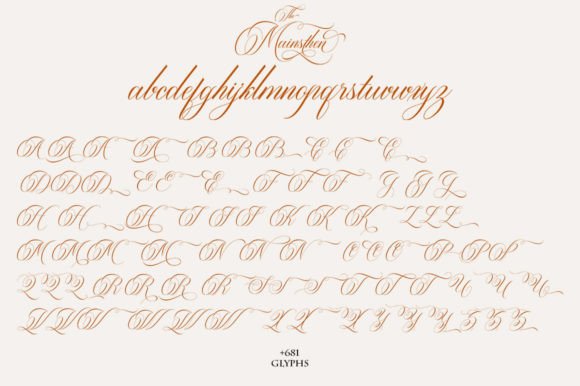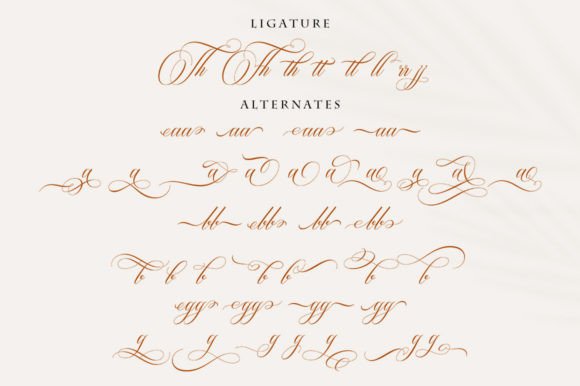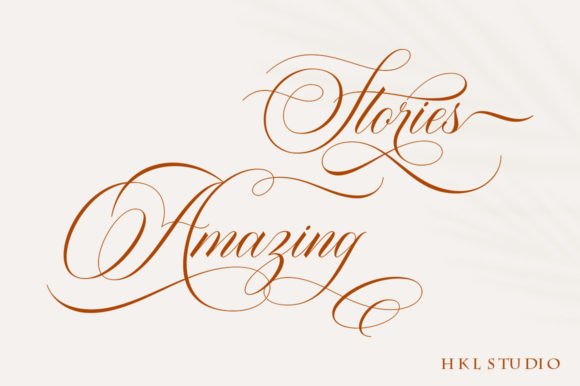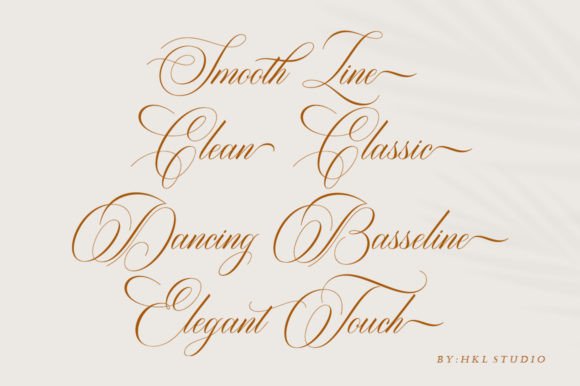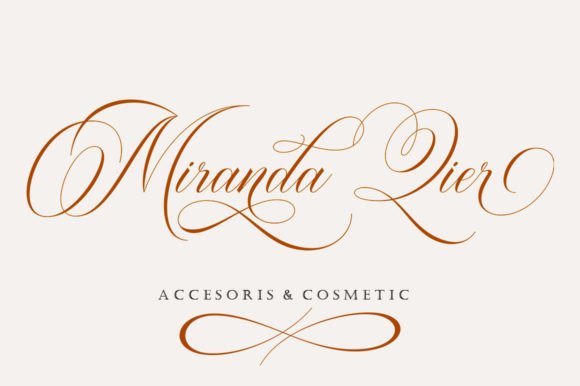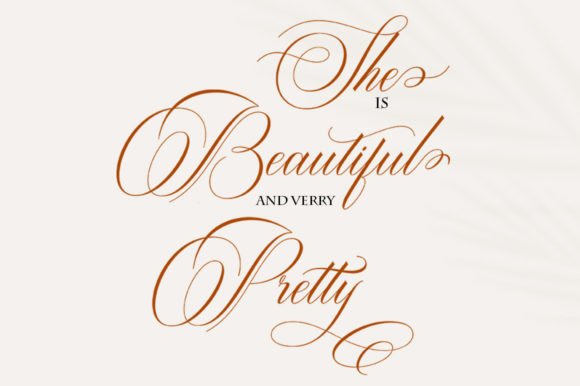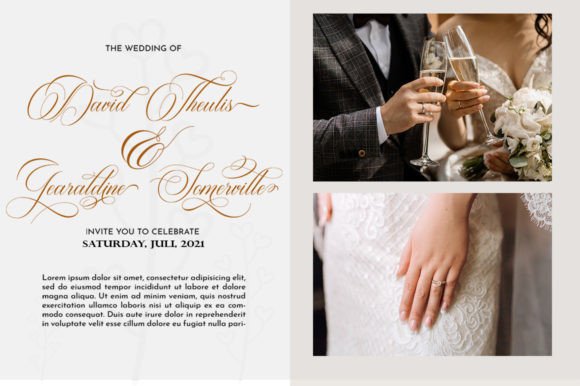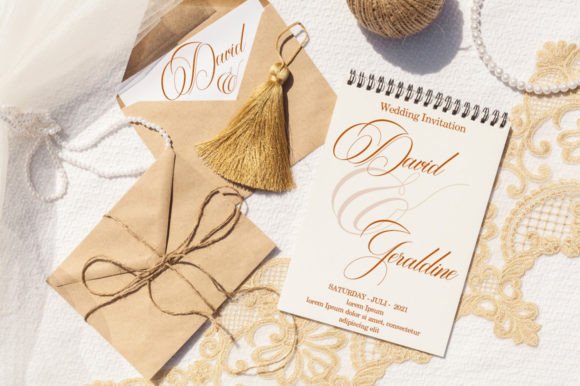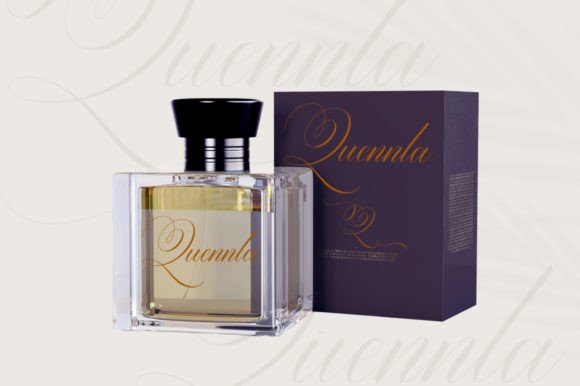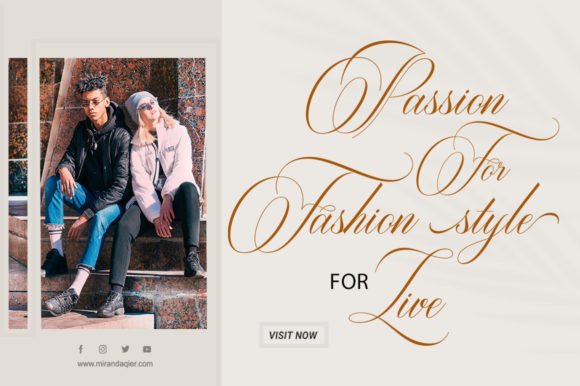
The Mainsthen Font
About The Mainsthen Font
The Mainsthen font is a beautifully crafted calligraphy script that combines classic elegance with a modern twist. It features exquisite character variations that add a unique decorative flair to your designs. This font stands out due to its high level of detail and graceful style, making it a perfect choice for designers seeking a sophisticated yet approachable look.
Elegant and Feminine Style
With its soft and clean strokes, The Mainsthen font exudes a feminine and glamorous vibe. The smooth, sensual lines create a font that is not only visually stunning but also easy to read. Its simplicity paired with sophistication makes it suitable for a wide range of creative uses, from fashion branding to wedding invitations.
Versatile Usage for Various Projects
This font excels in versatility. You can use it for invitations, greeting and wedding cards, or restaurant menus that require a refined aesthetic. Its elegant style also fits perfectly for logos, makeup branding, stationery, and even novels or magazines. The Mainsthen font enhances any project that needs a touch of class and modern elegance.
Ideal for Advertising and Packaging
Beyond invitations and branding, The Mainsthen font is excellent for packaging and advertising materials. Whether it’s product labels or promotional campaigns, this font adds an upscale and eye-catching quality to your work, helping you communicate elegance and style effectively.
In summary, The Mainsthen font is an elegant and versatile calligraphy script that enhances any project with a modern yet classic touch. Its exquisite character design, easy readability, and PUA encoding make it an essential asset for designers working on invitations, branding, advertising, and more. Add The Mainsthen font to your toolkit and elevate your creative projects with timeless elegance.